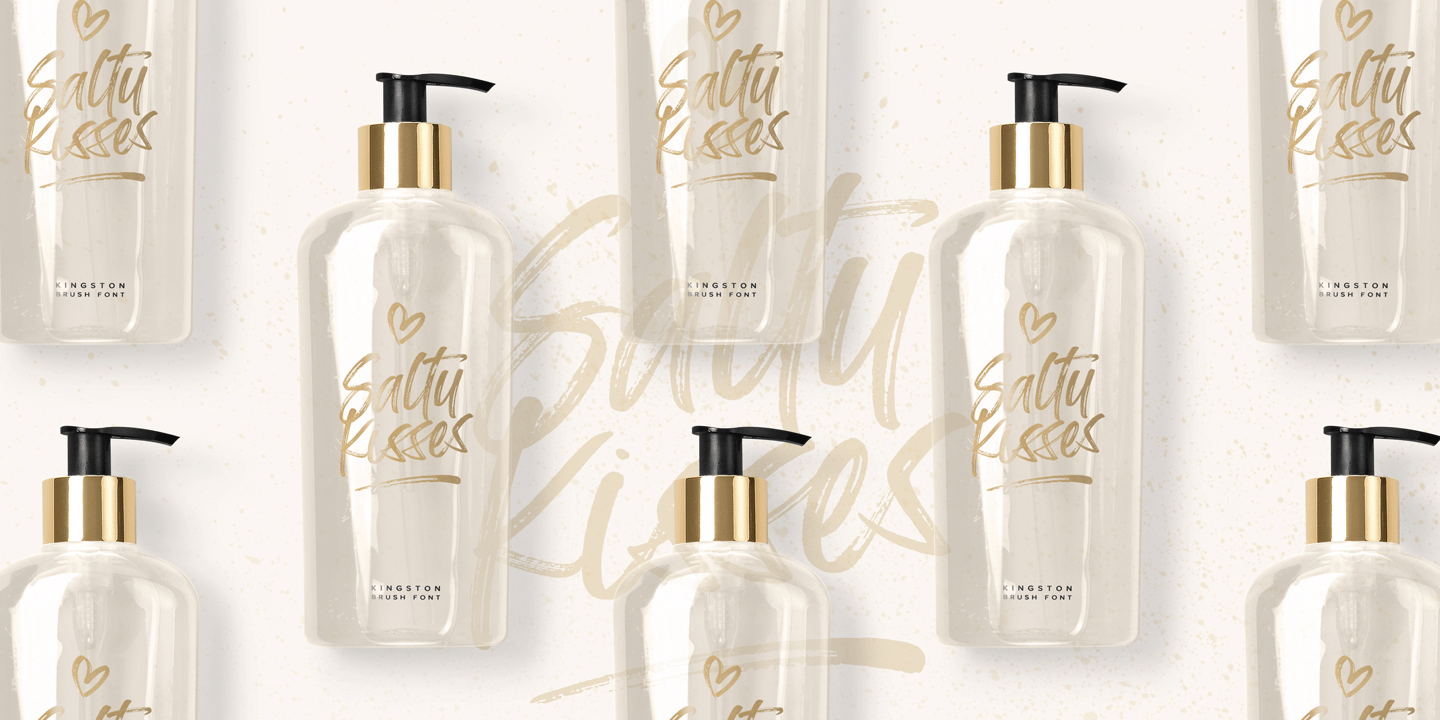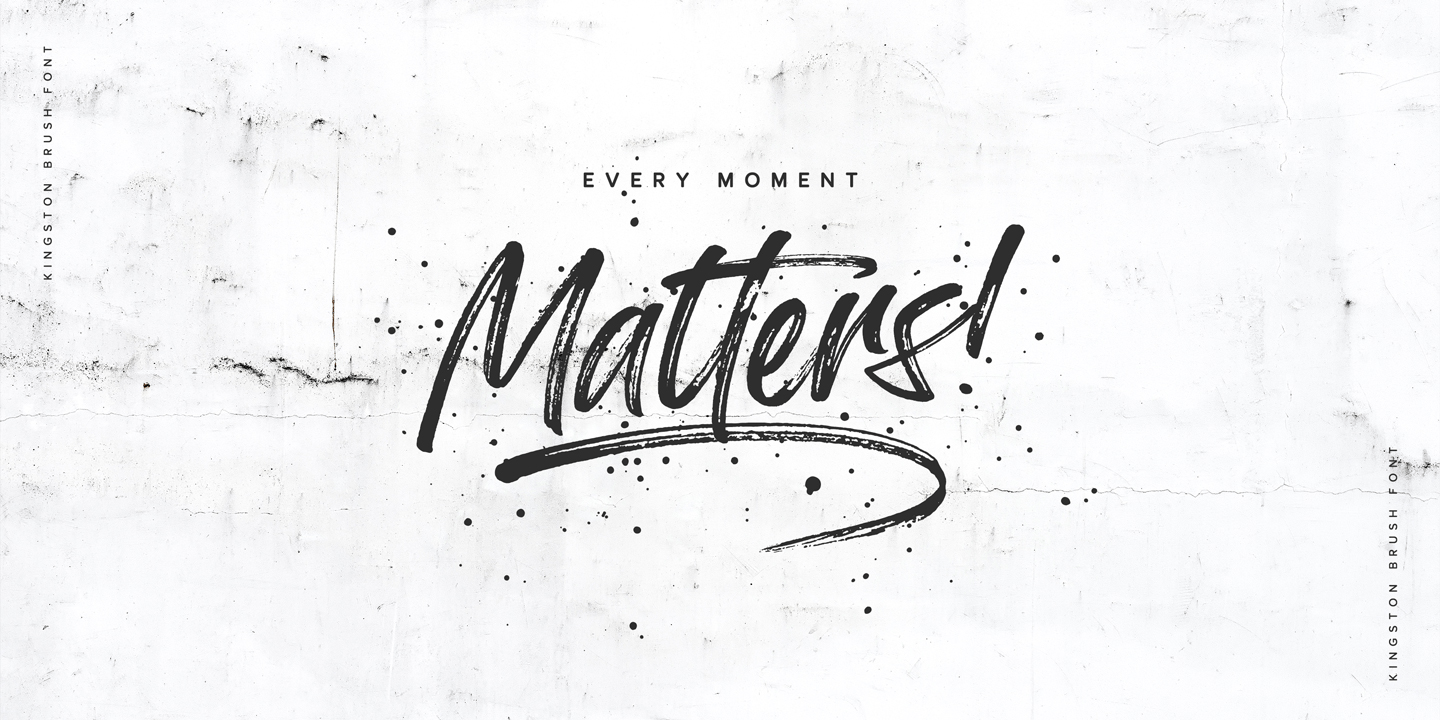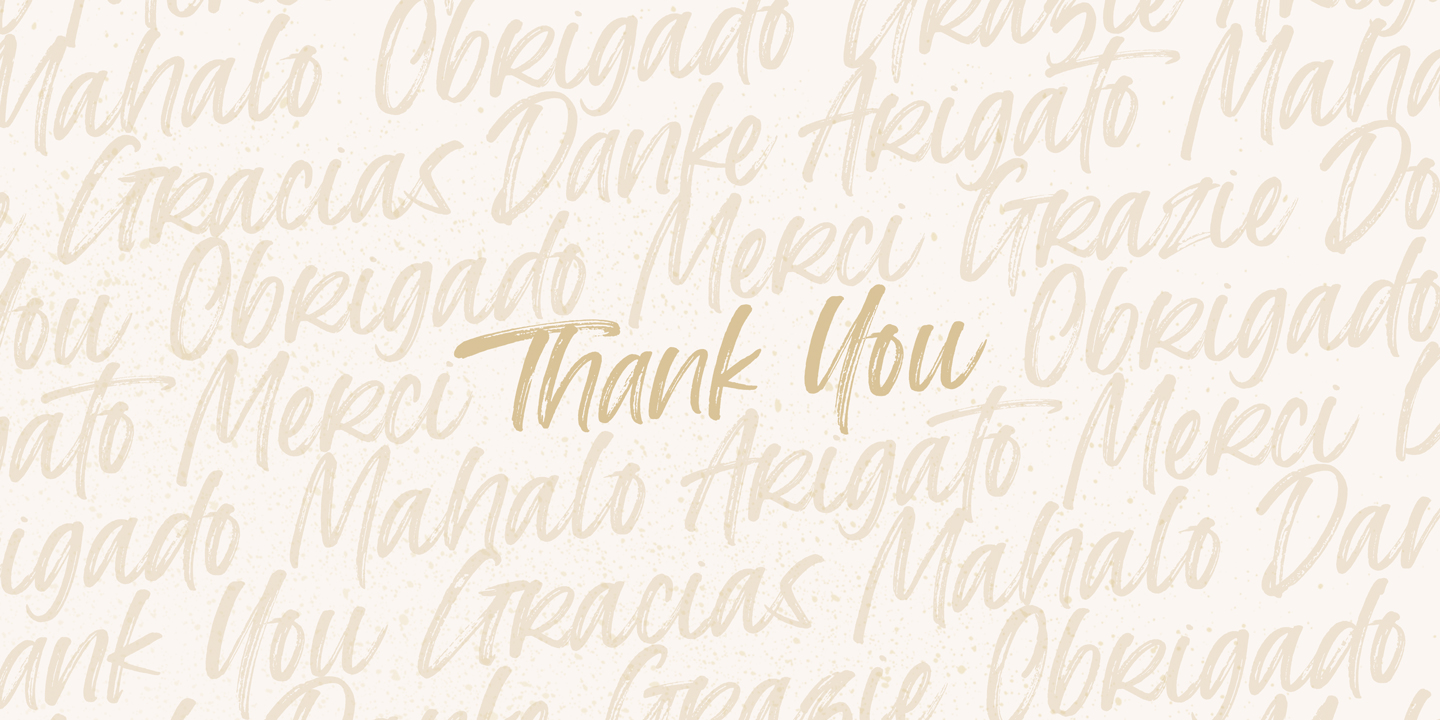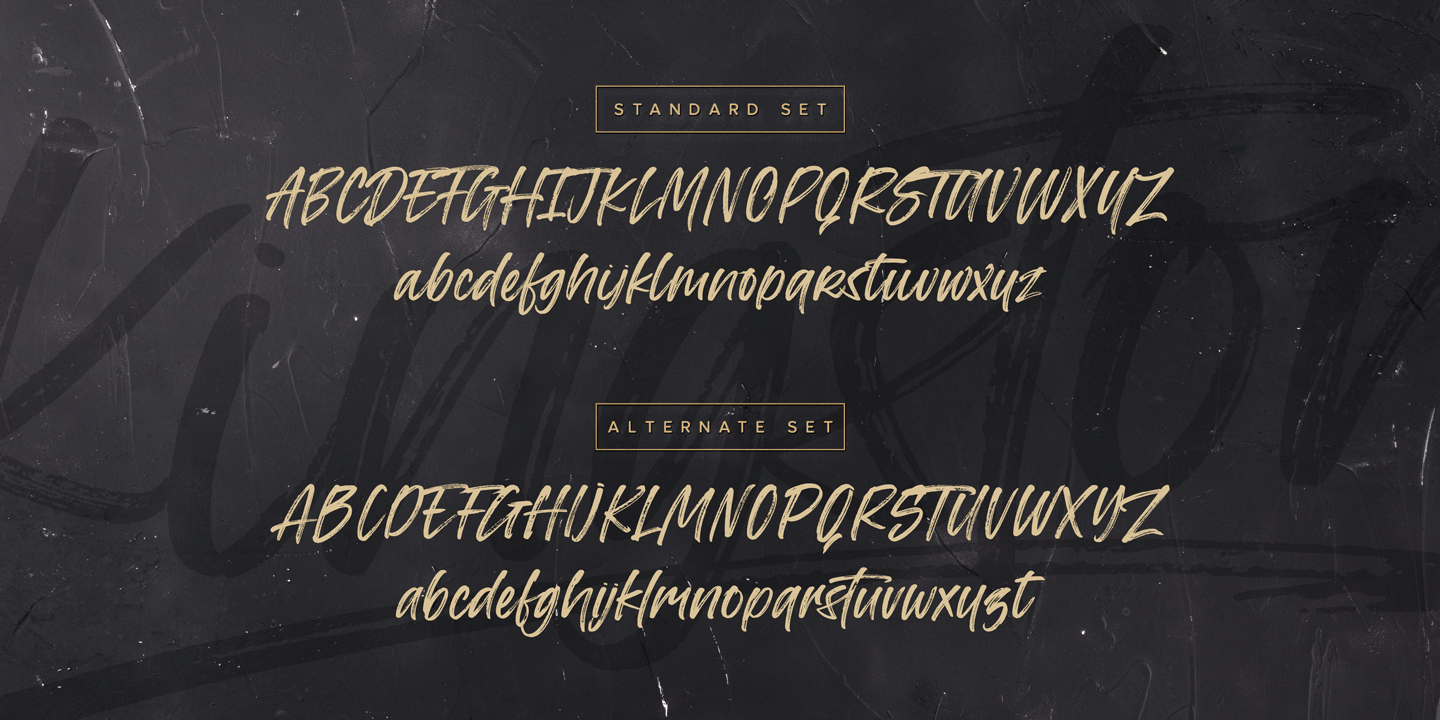
Kingston
Font Family by The Paper Town
Introducing Kingston an handwritten font with a high detailed dry brush texture.
Kingston has been designed to fit a wide range of projects from urban style to classic branding with a full alternative characters set to completely change the look of your design.
Kingston also includes a set of 52 hand-drawn elements that will add a nice finishing touch to your Kingston text.
Please note that Kingston includes both standard and alternates alphabets, while Kingston Alt only includes the alternate version.
Features:
• Kingston • A dry brush script font with uppercase and lowercase characters, alternative alphabet, ligatures, numerals and punctuation.
• Kingston Alt • The alternative set (lowercase and uppercase) of Kingston as standard set – (all others glyphs remain the same as Kingston.oft)
• Kingston Extras • A full set of brushed elements : 33 hand-drawn swashes, 4 doodles and 14 paint drips and splatters.
Multilingual support
Kingston supports multilingual characters for western, central and south-east European languages.